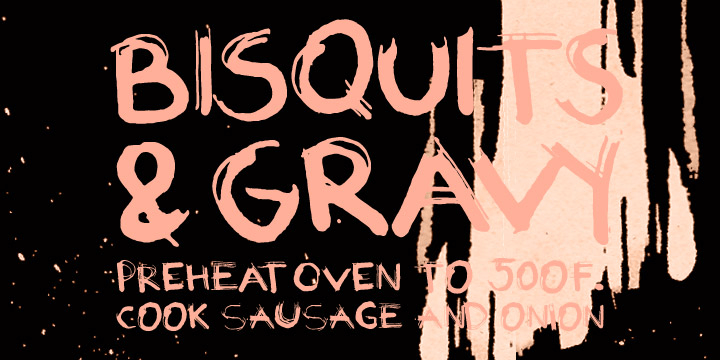
Biscuits And Gravy
Biscuits And Gravy is a distressed display font family from Fenotype with a rough, weathered look that gives headlines and lettering a more handmade, broken-in feel. Its textured appearance brings instant character to type, making it a strong choice when clean, polished letterforms would feel too formal.
With 1 included font style, this family is well suited to bold display work where personality matters most. Use it for posters, packaging, signage, branding, apparel graphics, or other projects that benefit from a gritty, vintage-leaning impression and an intentionally worn surface.